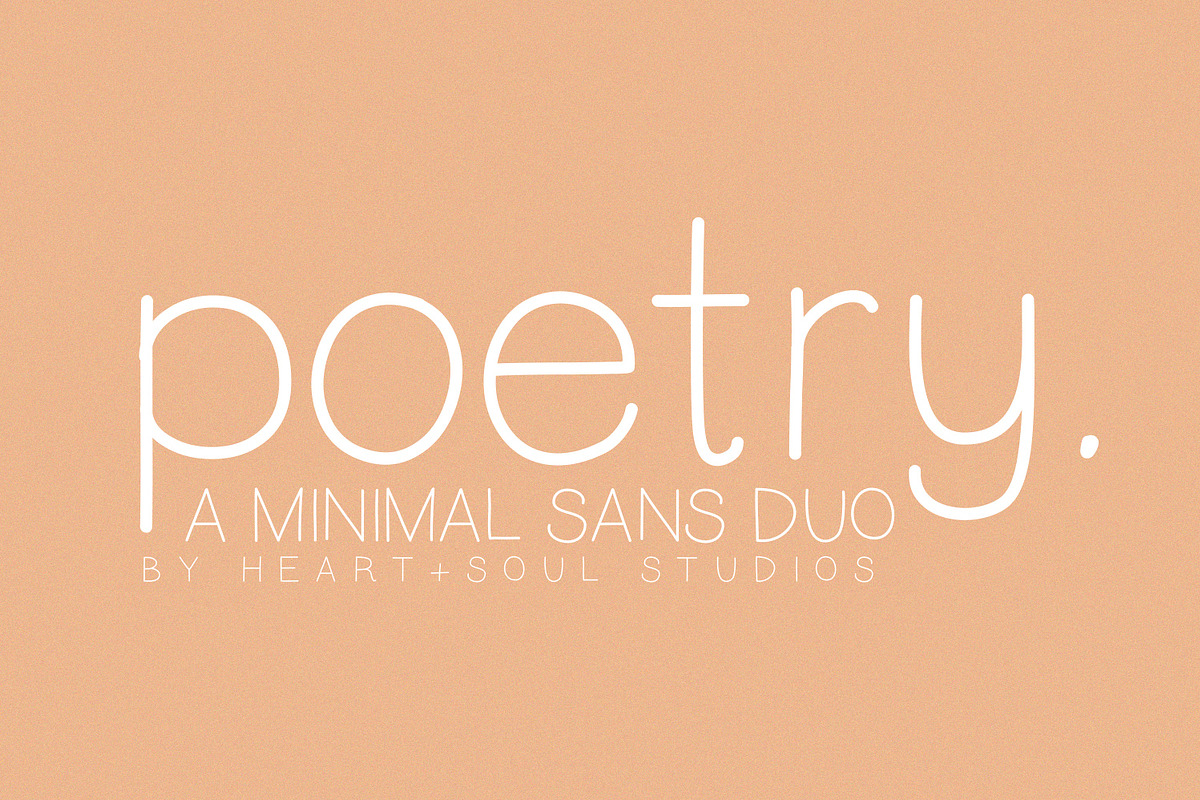
Poetry | Modern Minimal Sans Duo
Inspired by that which stirs souls to breathe again and the innocence of childlike love, Poetry is a minimal handwritten sans font, with a clean, honest feel.
For those willing to fall afresh into grace and beauty and love that lasts.